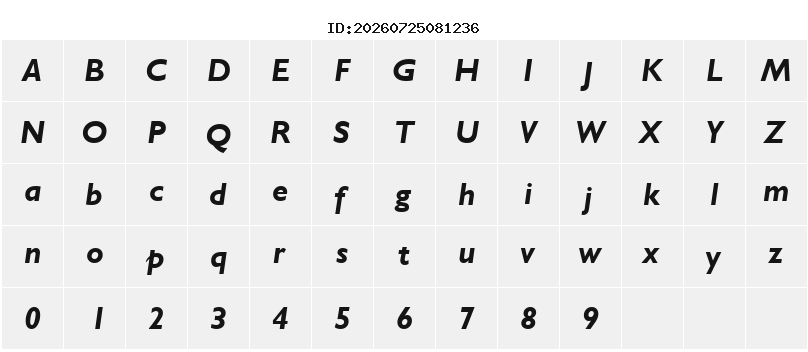
• Font Name: Gill Sans MT
• Font Style: Gras Italique
• Font ID: Monotype - Gill Sans MT Bold Italic
• Full Font Name: Gill Sans MT Gras Italique
• PostScript Name: GillSansMT-BoldItalic
• Designer: Eric Gill
• Manufacturer: Monotype Typography
• Description: Monotype Type Drawing Office 1928. Gill studied under the renowned calligrapher, Edward Johnston, the designer of the London Underground sans serif typeface. This influenced Gill who later experimented with sans serif designs, and in due course produced a set of capital letters. These became Monotype series 231, produced in 1923, and the forerunner of the extensive Gill Sans range now available. A twentieth century sans serif that has a simplicity of form which does not reject traditional forms and proportions, and gives the face a humanist feel. The lighter weights are highly readable in text and suitable for magazine and book work, whereas the heavier weights are best used for display in advertising, packaging, and labels.
Gill Sans MT.ttf is a modern, elegant sans-serif font designed for ultimate readability and visual harmony. Perfect for branding, headlines, web design, and print materials.